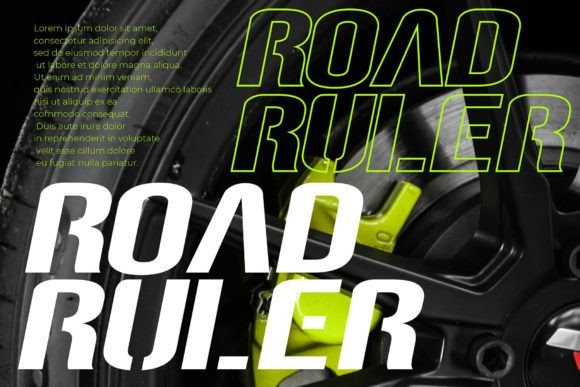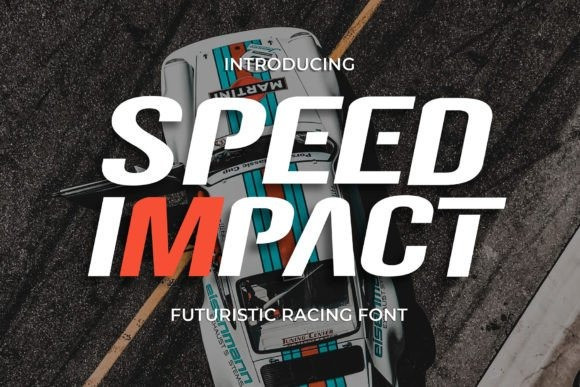
Speed Impact Font
Speed Impact Font is a display font with a sporty and futuristic theme, perfect for design projects such as sports jerseys, athletic shoes, helmets, and other sports-related products. With its dynamic appearance, this font brings a sense of energy and movement to your designs.